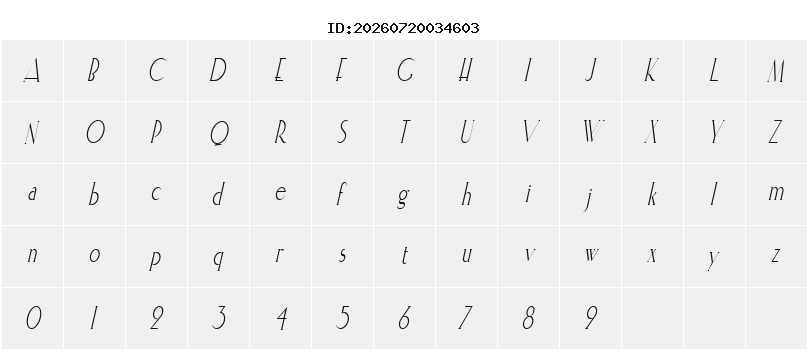
• Font Name: ElisiaCondensed
• Font ID: Weatherly Systems, Inc. ElisiaCondensed Italic
• Full Font Name: ElisiaCondensed Italic
About ElisiaCondensed.ttf
ElisiaCondensed.ttf is a modern, elegant sans-serif font designed for ultimate readability and visual harmony. Perfect for branding, headlines, web design, and print materials.